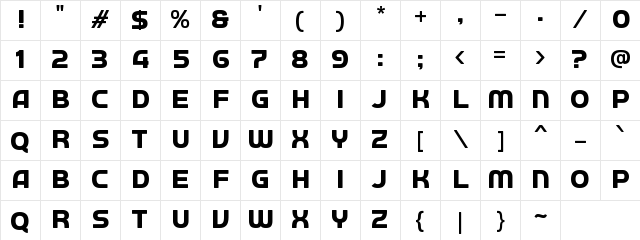
Complete a Autobus Omnibus Regular glyph index. Displaying only characters natively supported by a Autobus Omnibus Regular font.
a Autobus Omnibus is a composed and adaptable typeface that performs quietly and consistently across a wide range of design contexts.